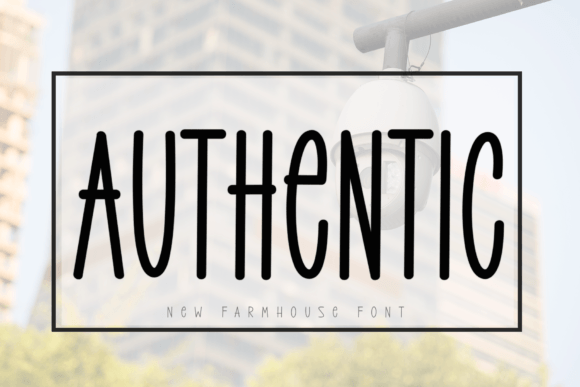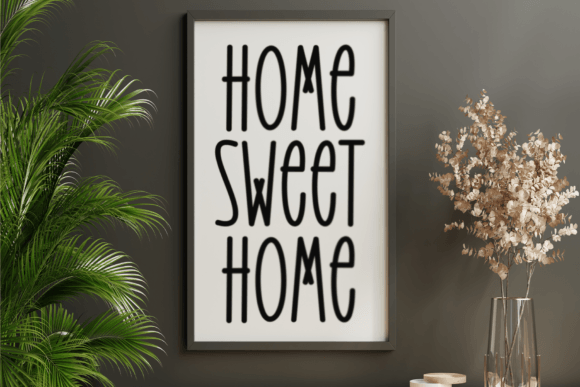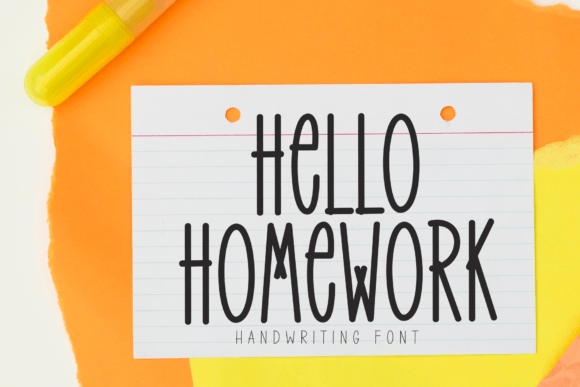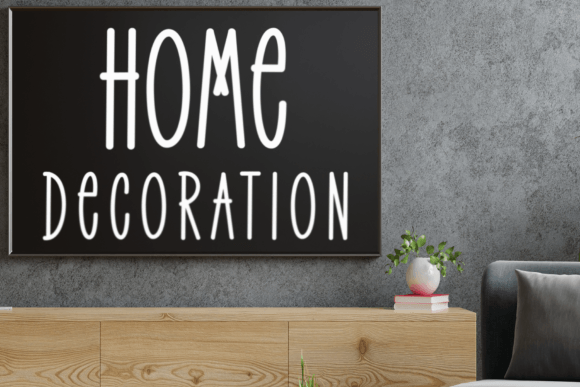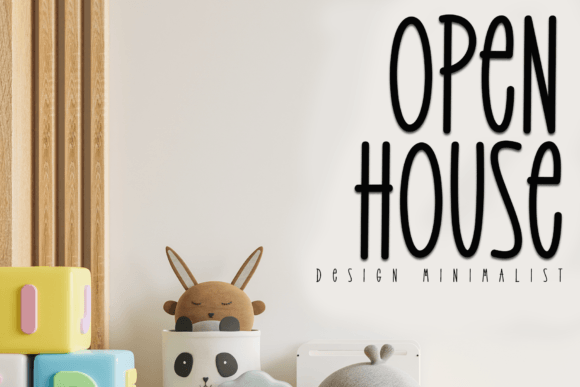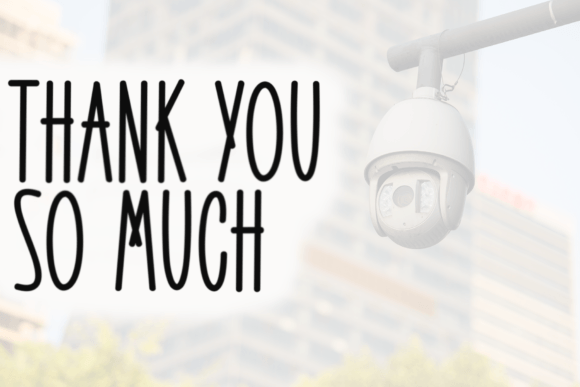
Authentic Font
About Authentic Font
**Authentic: A Stylish Handwritten Font for Timeless Beauty**
**Authentic** is a stylish handwritten font that combines a contemporary atmosphere with the impeccable form inspired by timeless classic calligraphy. This font is a harmonious blend of elegance and modernity, designed to elevate the beauty of your creative projects.
**Authentic** stands out with its balanced and varied handwritten letterforms, which exude a sense of sophistication and timelessness. Each character is meticulously crafted to ensure that your projects are graced with a touch of timeless charm.
The versatility of this font makes it suitable for a wide range of design applications. Whether you’re working on branding, invitations, stationery, social media posts, or any other creative endeavor, **Authentic** adds a unique and elegant element to your work.
In branding and logos, this font ensures that your visual identity conveys sophistication and timeless beauty, leaving a lasting impression.
For invitations and event-related designs, **Authentic** enhances the elegant and classic aspects of your projects, creating a memorable atmosphere for special occasions.
In conclusion, **Authentic** is more than just a font; it’s a design asset that brings contemporary elegance and timeless beauty to your creative projects. Whether you’re designing for special events, branding, or various other contexts, choose **Authentic** to infuse your work with its unique and refined charm. Embrace its balanced form, and let your creativity flourish with sophistication and beauty.